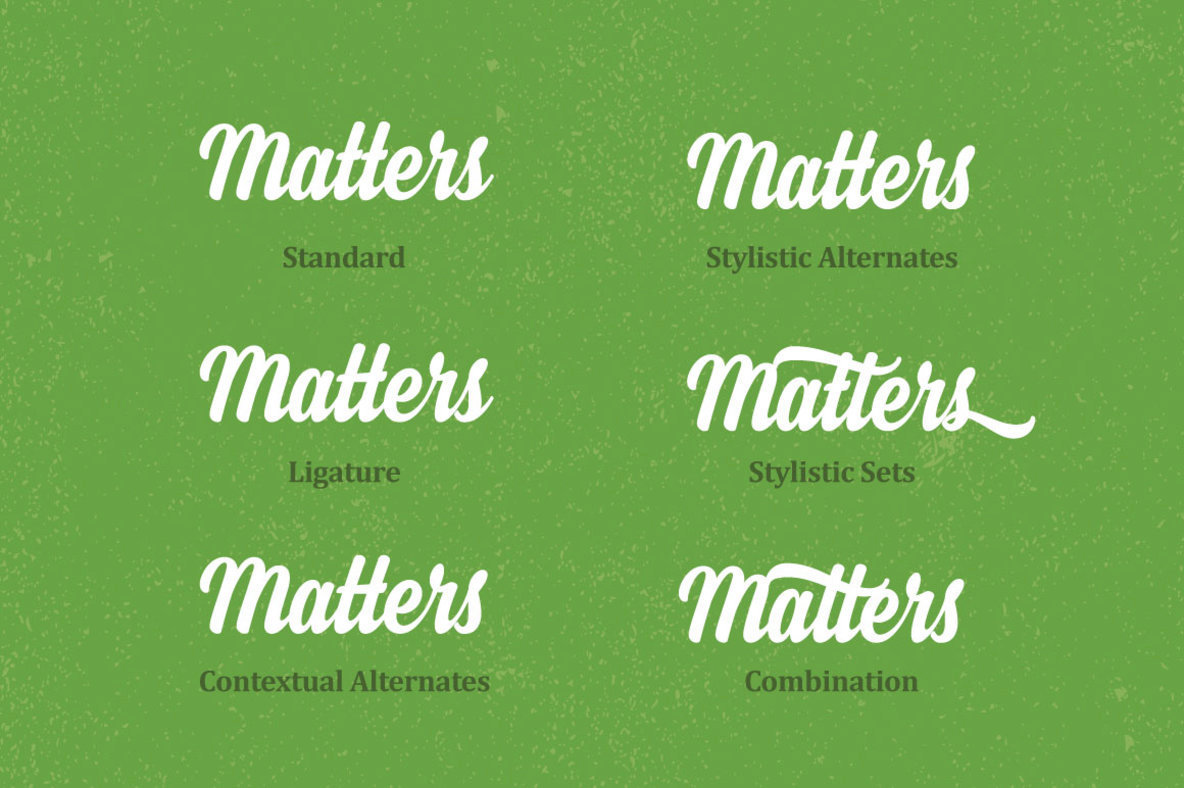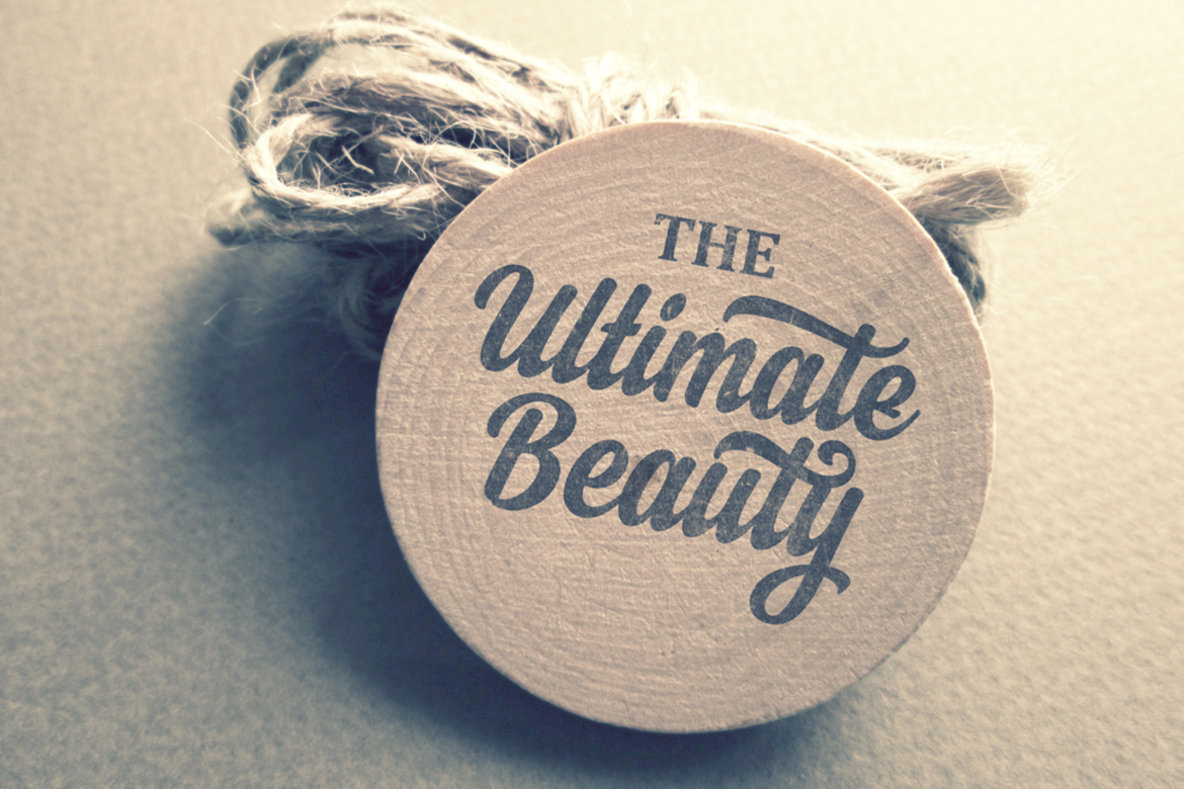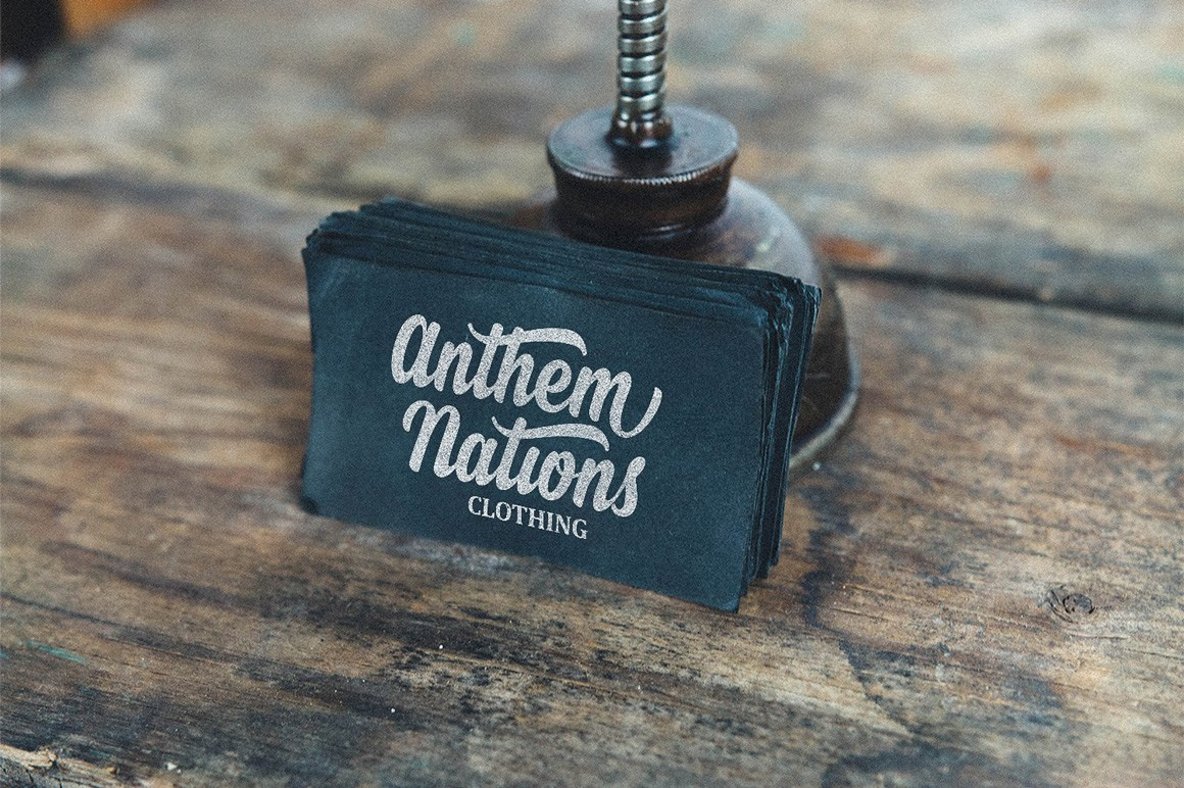
Steady 1
Steady is a script typeface with personality. It was designed as a display typeface that contains 315 glyphs in total and 126 alternative characters to improve your design. You can use it as a logo, badge, insignia, packaging, headline, poster, t-shirt/apparel, greeting card, and a wedding invitation. The flowing characters are ideal to make an attractive message, mix and match Steady with a bunch of alternative characters to fit your project.
The alternative characters in this font were divided into several OpenType features such as Contextual Alternates, Stylistic Sets, and Ligature. The OpenType features can be accessed by using an OpenType savvy program such as Adobe Illustrator and Adobe InDesign.